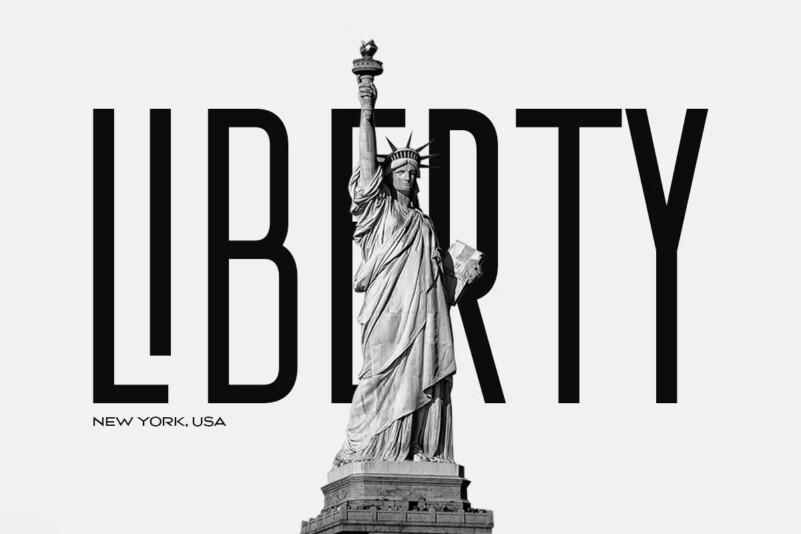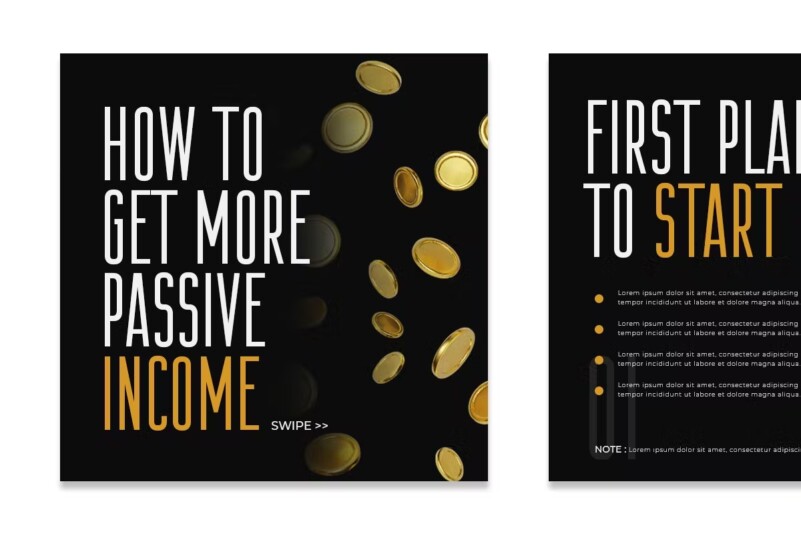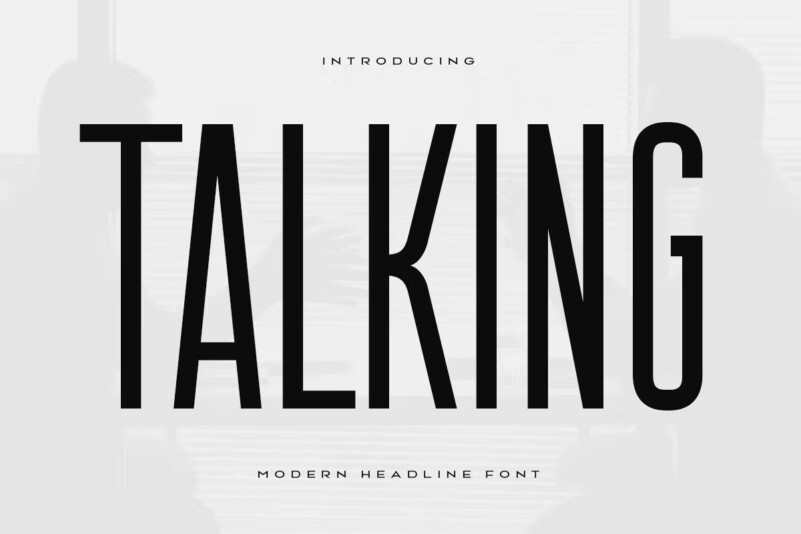
Talking – Modern Headline Condensed Font
Talking is an ultra condensed sans serif font that is perfect for headline, Instagram post, etc.
A new San Serif font we created especially for Headline, Title and more typography needs, with an added ligature that will add your variations. It is perfect for adding your style and title outline. And especially for Headline font, we designed for unique style and modern feel, so enjoy creating any project that will show your main idea.